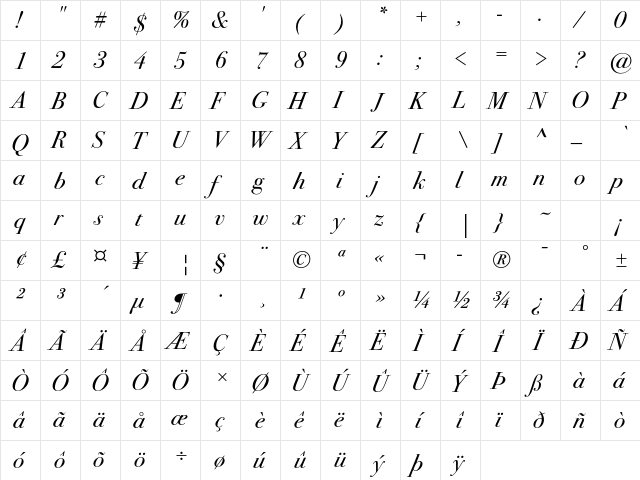
Bodoni Svntytwo ITC Std BookIt
| Designer | Janice Fishman, Holly Goldsmith, Jim Parkinson, Sumner Stone |
Design Context for Bodoni Svntytwo ITC Std Typeface
Bodoni Svntytwo ITC Std takes a measured approach to typography — its balanced proportions and neutral character make it a reliable workhorse for both digital and print work.